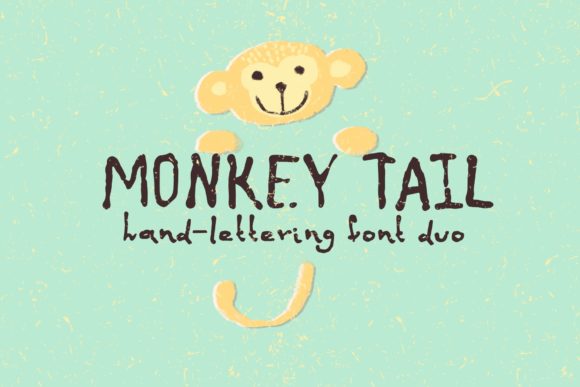
Unleash Your Inner Child with Monkey Tail: The Cartoonishly Delightful Display Font
In the realm of captivating fonts, Monkey Tail stands tall as a whimsical masterpiece, inviting you on a playful journey through the world of imagination. This display font, meticulously crafted by Irina Matiash, exudes a childlike charm that instantly transports you to a world of laughter, wonder, and boundless creativity.
Monkey Tail's playful dance of characters, reminiscent of a mischievous monkey's tail, adds a touch of whimsy to any design. Each letter, a quirky caricature, bursts with personality, promising to infuse your creations with an infectious sense of joy. Whether you're designing for children's games, playful logos, vibrant posters, or any project that demands a dash of lightheartedness, Monkey Tail is your perfect companion.
Imagine your words taking on a life of their own, morphing into playful shapes that captivate and enchant your audience. Monkey Tail's ability to evoke a smile transforms ordinary text into an extraordinary visual feast. Let your imagination run wild as you witness your designs come alive with a whimsical charm that speaks volumes.
Step into the world of Monkey Tail and discover a font that's not just a collection of letters, but a gateway to a world of make-believe. Its enchanting aura will cast a spell on your designs, making them irresistible to anyone who lays eyes upon them. Join the ranks of creative visionaries who have harnessed the magic of Monkey Tail to create captivating designs that leave a lasting impression.
So, seize this opportunity to unleash your inner child and embark on a creative adventure with Monkey Tail. Let its playful spirit ignite your imagination and transform your designs into whimsical masterpieces. Dive into the world of Monkey Tail today and experience the joy of creating designs that truly capture the essence of childhood wonder.